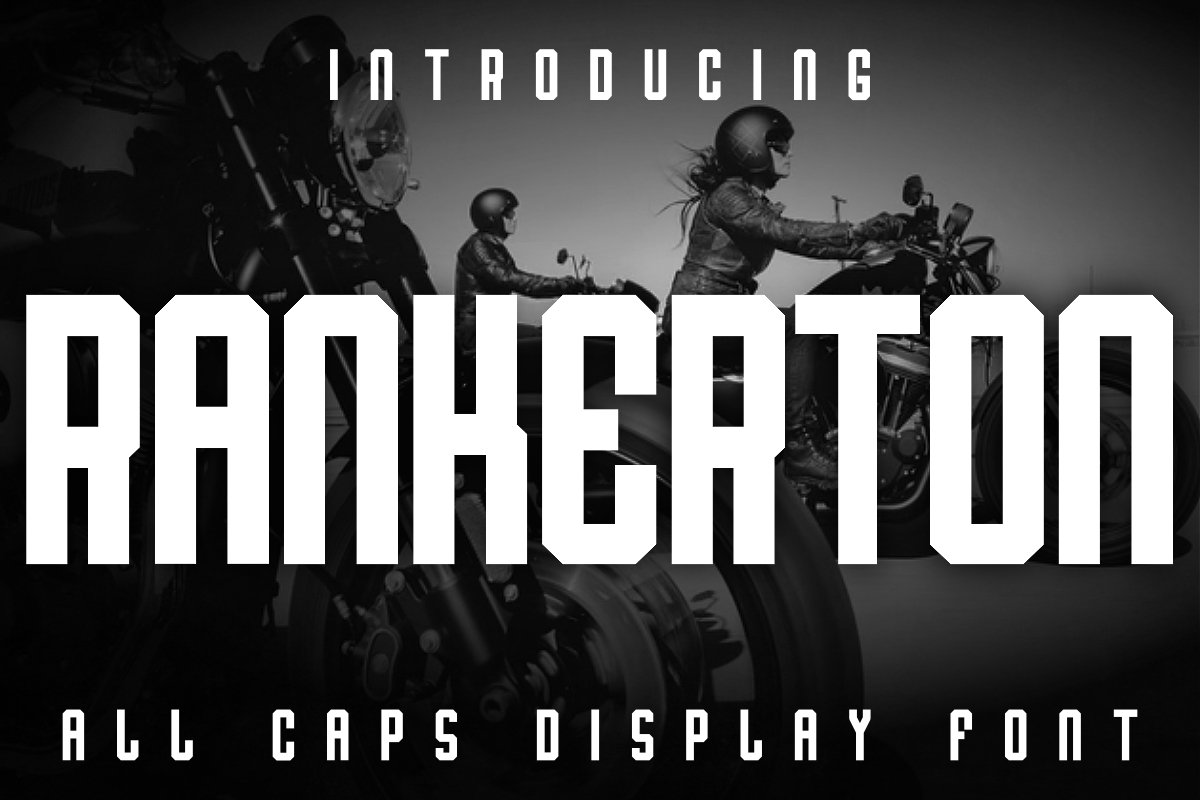
Rankerton
Introducing RANKERTON - sans serif all caps display font. Rankerton is suitable for sport designs, product packaging, futuristic stye and  for various designs such as logo, t-shirt, posters, label,branding, poster headline, movie title, store front, youtube thumbnail, magazine headline, letterhead, book cover and etc.